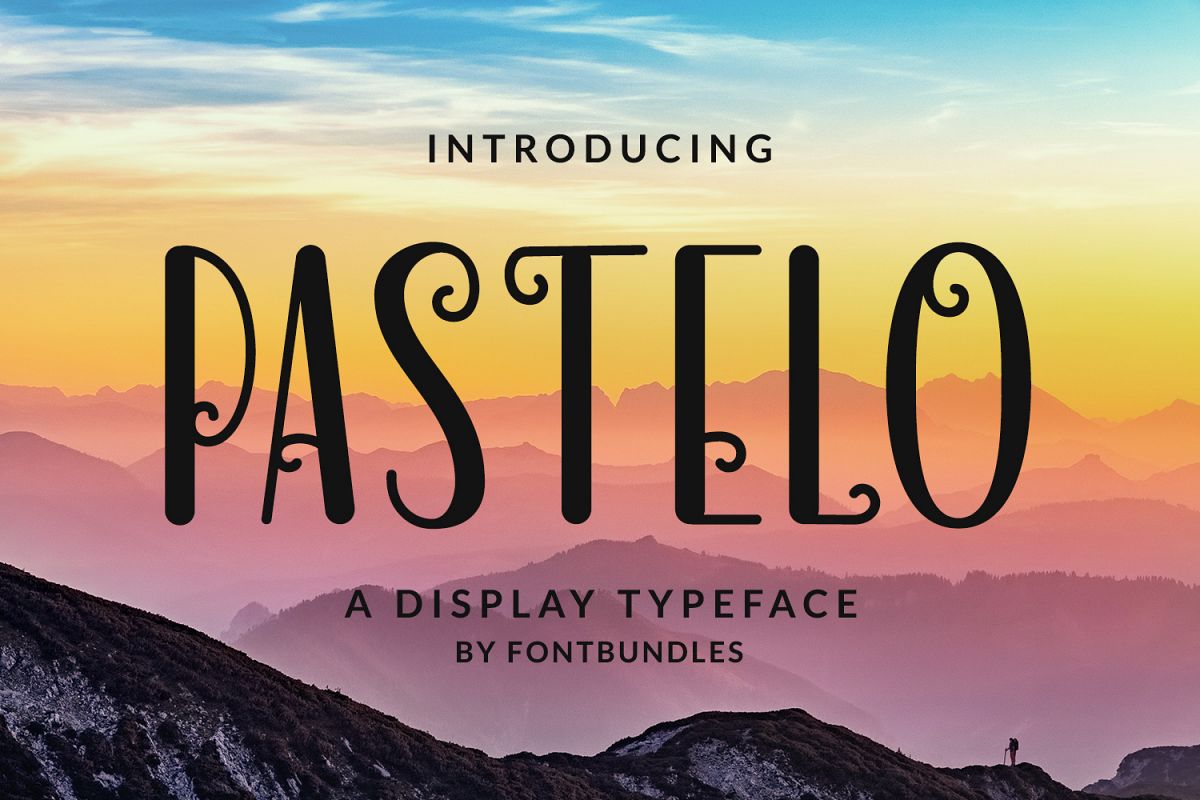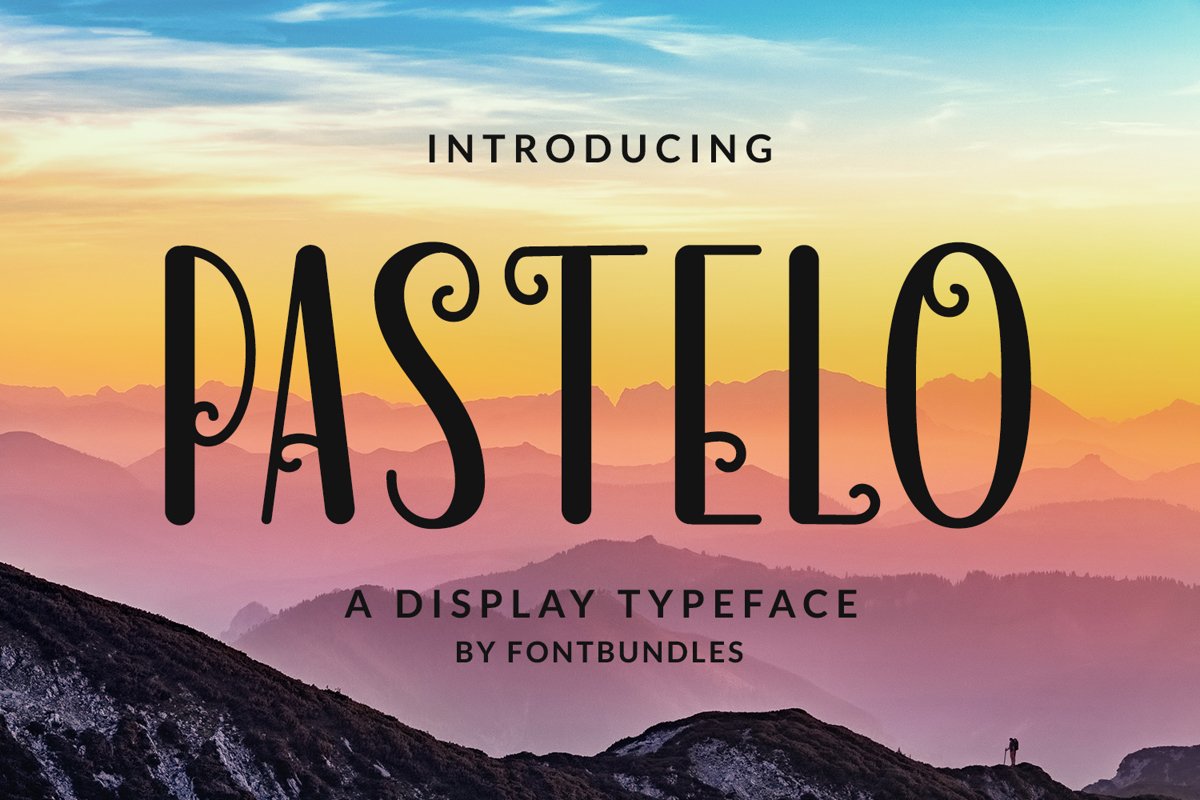
Pastelo is a classy display typeface. Perfect for logo design, invitations and labels. Also for printing clothes and craft products branding and packaging (herbal tea, handmade soap, organic food).